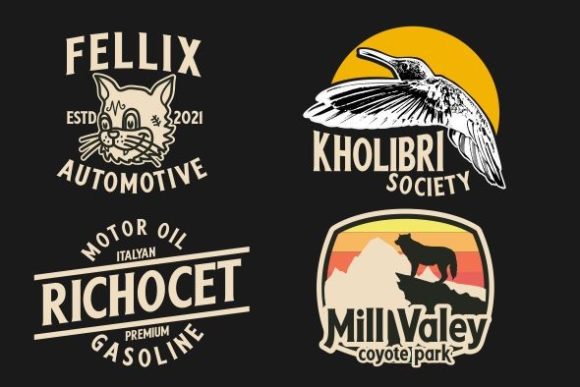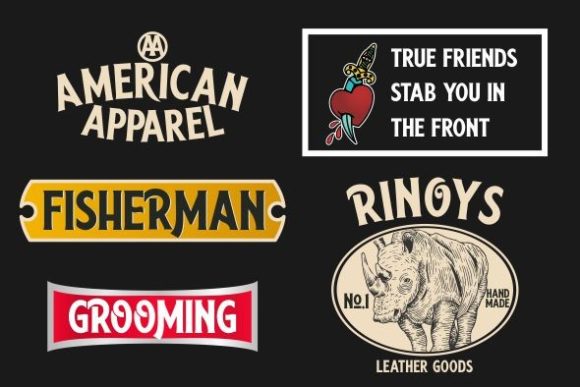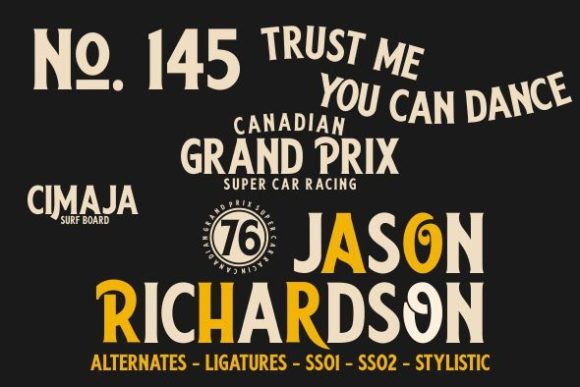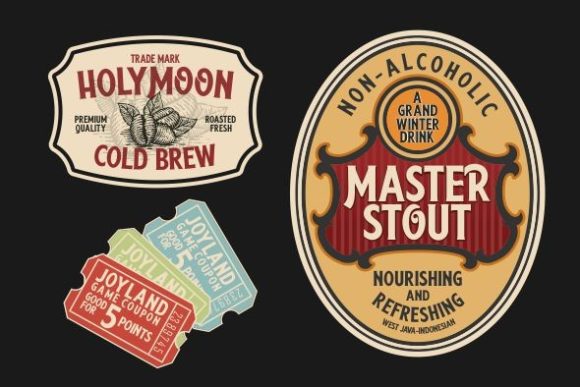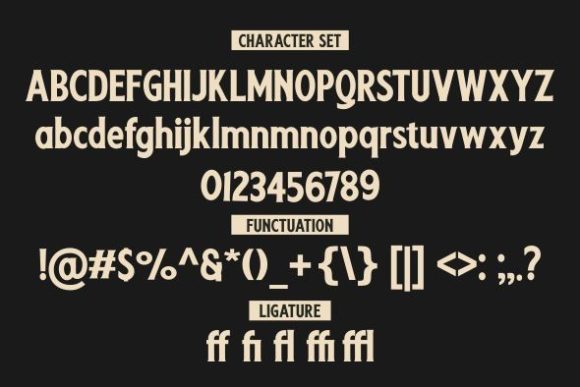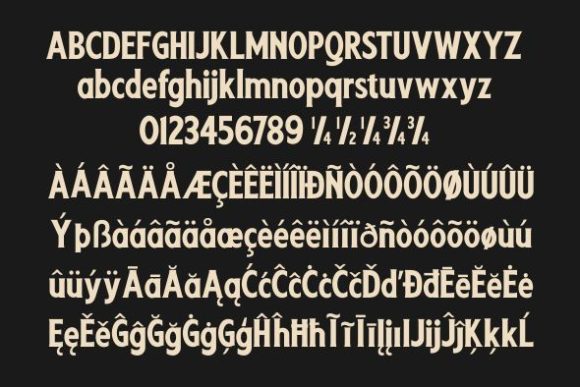
Introduction to Rockabilly Font
Have you ever found yourself scrolling through social media, searching for the perfect font to add a touch of personality to your latest creative project? I know I have. And sometimes, it’s not just about finding a font that looks good, but one that tells a story and captures the essence of our style.
For those who love the fusion of modern and vintage vibes, the Rockabilly Font is a game-changer. This high-quality design resource is perfect for designers who want to add a touch of sophistication to their work without sacrificing creativity.
With its clean lines and minimalist serif, the Rockabilly Font is ideal for a wide range of design applications, from books and games to apparel designs and social media posts. And the best part? It’s available for free download, making it an accessible and valuable addition to any designer’s toolkit.
Key Features of Rockabilly Font
- Unique, high-quality design that captures the spirit of 1950s rock ‘n’ roll, making it a great resource for creative projects.
- Perfect for designers working on music-themed projects, as well as those looking to add a touch of nostalgia and retro flair to their creative work.
Honest Review: Rockabilly Font
I recently had the chance to work with the Rockabilly Font, and I must say it’s been a wild ride. This font is perfect for designers who want to give their projects a unique, nostalgic vibe. ✨
One of the things I love about the Rockabilly Font is its high quality. The font is crisp, clean, and easy to read, even at smaller sizes. It’s a great addition to any design resource library.
Here are some of the key features that make the Rockabilly Font stand out:
- Transparent background, making it easy to overlay on top of other design elements
- Perfect for creative projects that need a touch of retro flair
That being said, there are a few limitations to keep in mind:
- Some users may find the font too bold or over-the-top
- The font may not be suitable for projects that require a more modern or minimalist aesthetic
Overall, I’m really impressed with the Rockabilly Font. It’s a great choice for designers who want to add some personality to their work. With its high quality and unique style, it’s definitely a design resource worth checking out.
Tips for Getting the Most Out of the Rockabilly Font
Use the Rockabilly Font on a transparent background to give your designs a modern and sleek look. Experiment with different font sizes and colors to create a visually appealing effect. You can also combine the Rockabilly Font with other design elements, such as images or shapes, to create a unique and creative project.
The Rockabilly Font is perfect for designing music-related projects, such as concert posters or album covers. It’s also great for creating retro-style graphics or vintage-inspired designs. With its unique and playful style, the Rockabilly Font is a great choice for any creative project that requires a high-quality design resource.